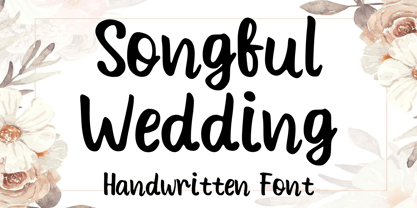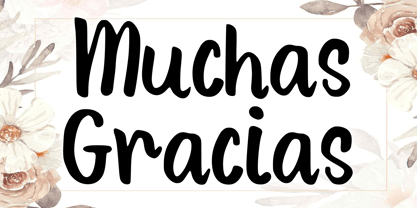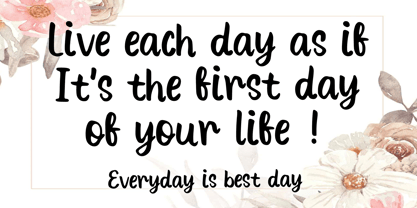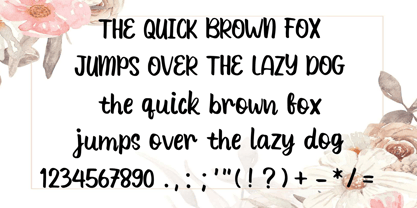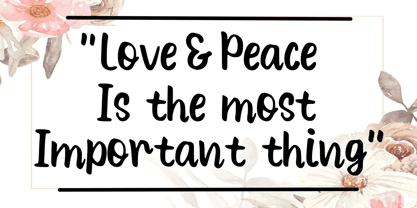
Songful Wedding
by Mvmet
The Songful Wedding Font Family was designed by Gabriel Valentinus and published by Mvmet. Songful Wedding contains 1 styles. More about this family
Introducing Songful Wedding, a charismatic display font that beautifully merges character with sophistication. Ideal for crafting striking headlines and captivating designs, this font excels in its versatility, breathing life into retro graphics while adding elegance to sleek logos, wedding invitations, and editorial pieces. Infused with romantic charm and a vibrant aesthetic, Songful Wedding elevates your design projects to new heights of refinement. With its irresistible allure, it becomes a visual feast for the aesthetically inclined, transforming every creation into a delightful masterpiece.
Designers: Gabriel Valentinus
Foundry: Mvmet